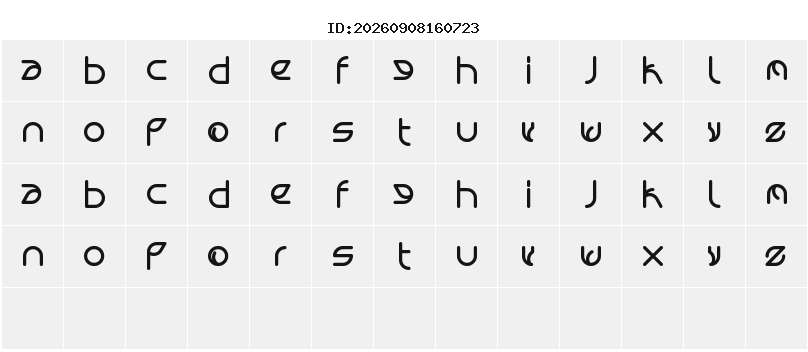
victory Preview
• Font Name: victory
• Font ID: victory:Version 1.00
• Full Font Name: victory
• Version: Version 1.00 August 20, 2011, initial release
• PostScript Name: victory
• Designer: 桴瑰㨯⽷睷⹤慦潮琮捯洯睩湯⵳⵫慤楲⹤㈲〹
• Manufacturer: 桴瑰㨯⽷睷⹤慦潮琮捯洯睩湯⵳⵫慤楲⹤㈲〹
About victory.ttf
victory.ttf is a modern, elegant sans-serif font designed for ultimate readability and visual harmony. Perfect for branding, headlines, web design, and print materials.